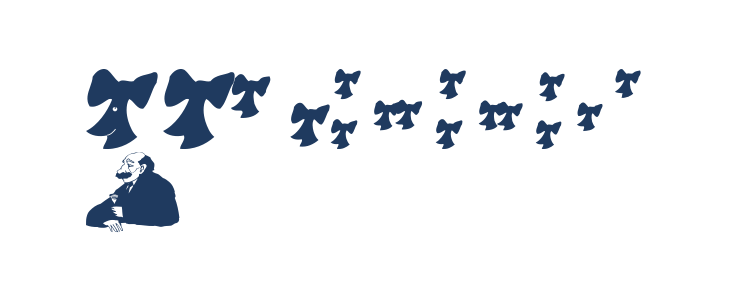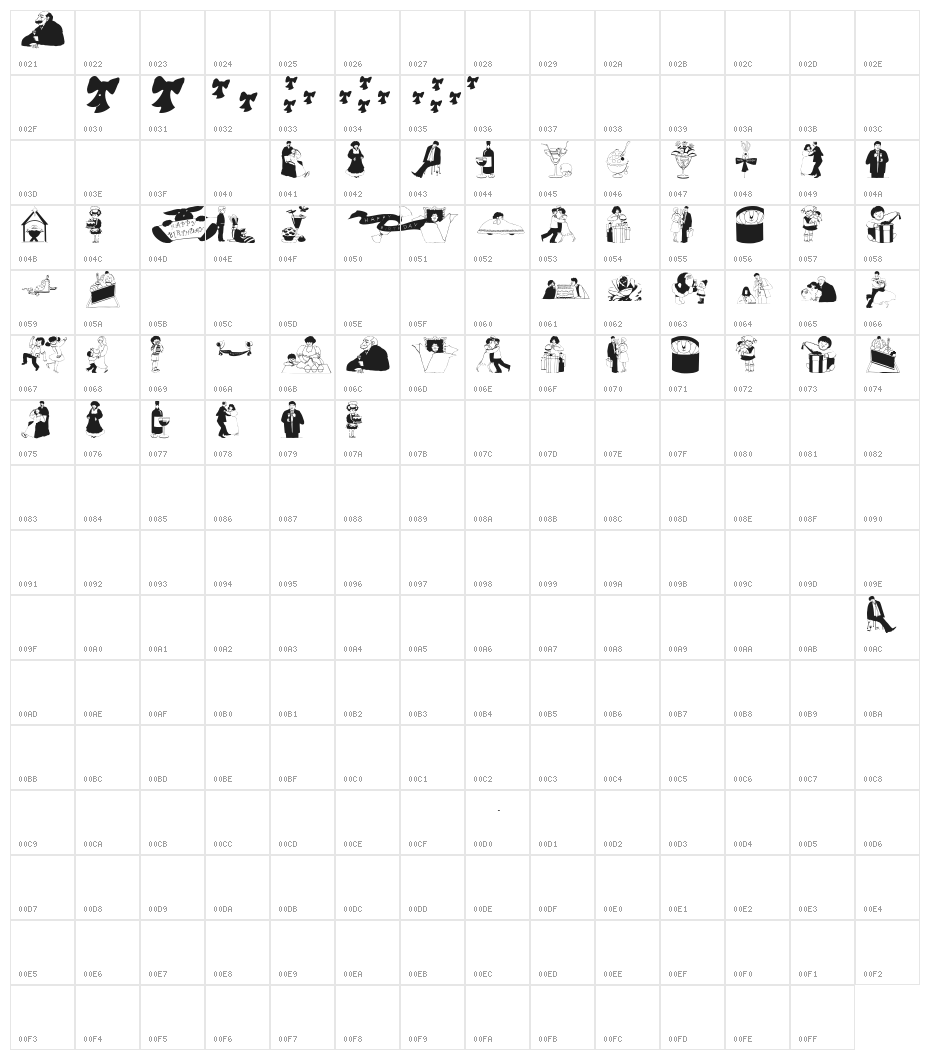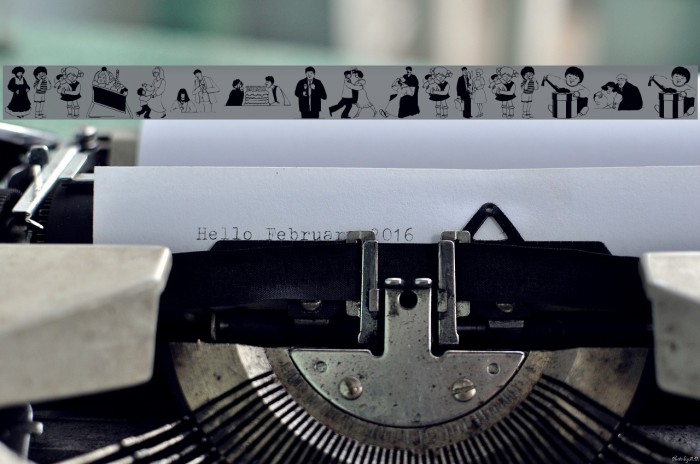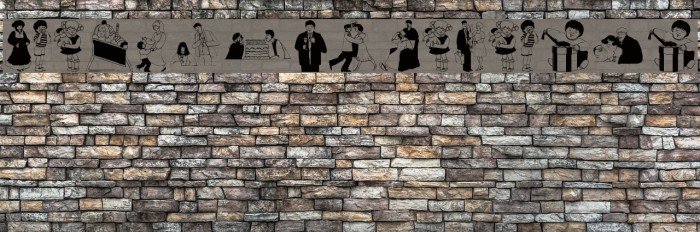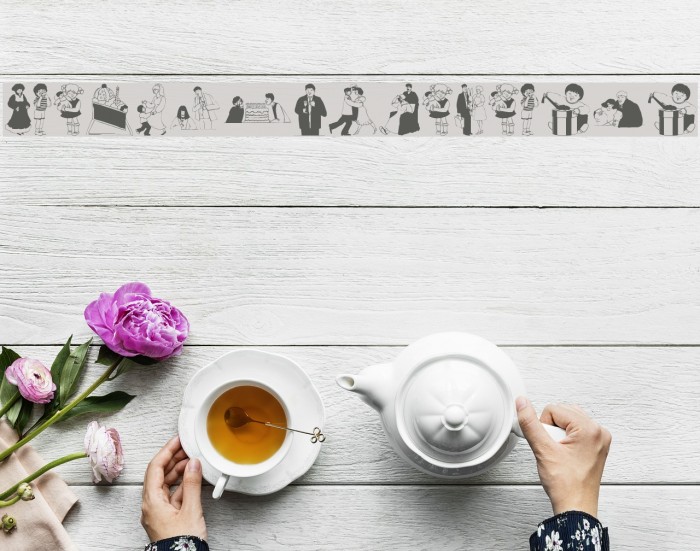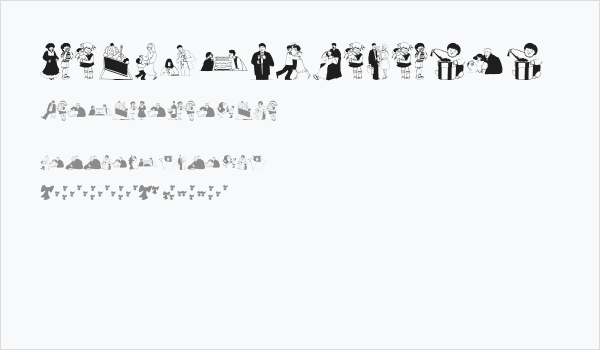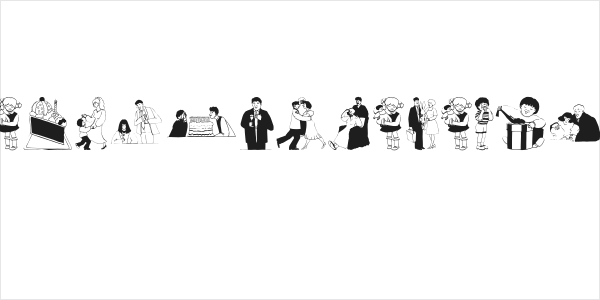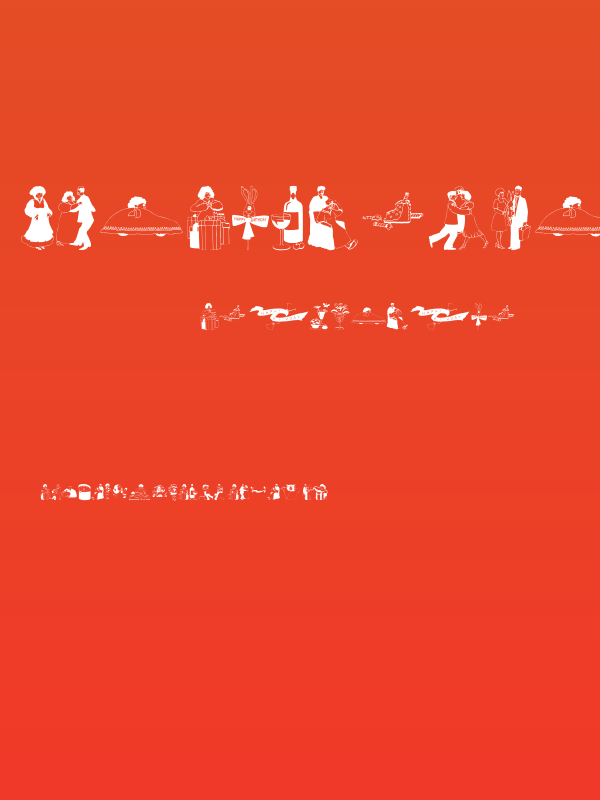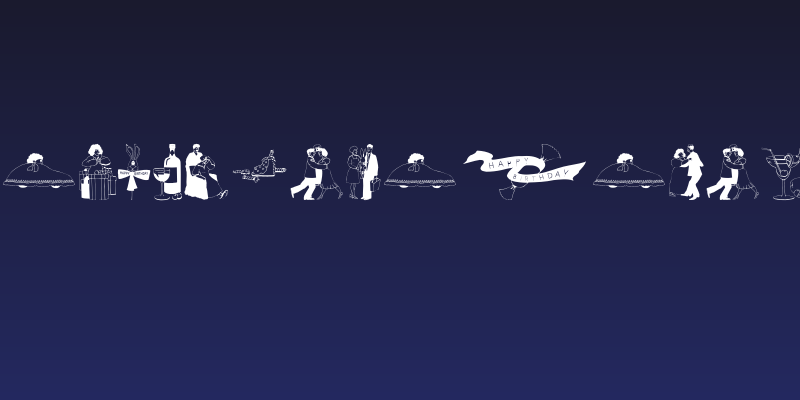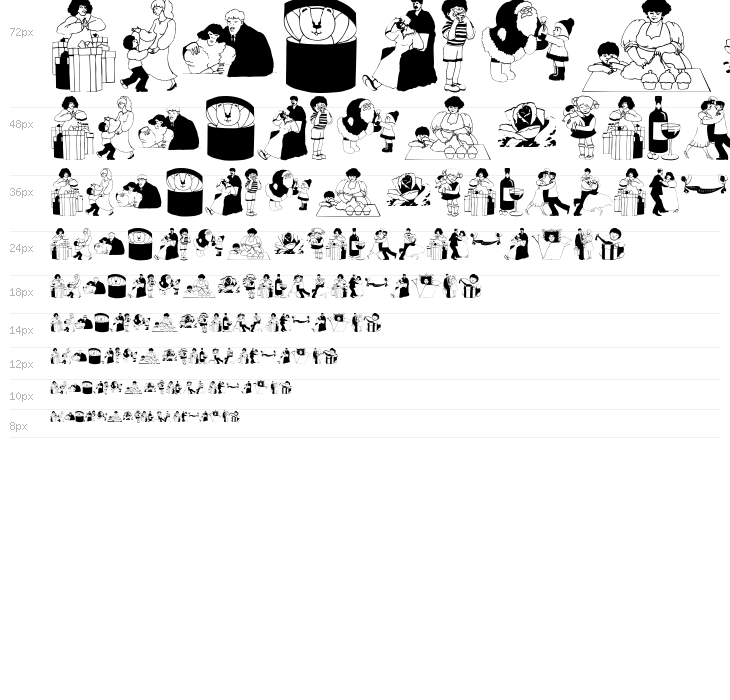
BirthdaySurprises Font
BirthdaySurprises Description
A decorative dingbat font featuring playful, detailed illustrations of birthday celebrations, gifts, party scenes, bows, and festive characters. Each glyph is a unique, cartoon-style image rather than a traditional letterform, emphasizing a whimsical and celebratory theme.
| Overall Style | Decorative, Whimsical, Playful |
| Use Case | Decorative elements, Invitations, Themed graphics |
| Proposed Projects | Party invitations, greeting cards, event flyers, scrapbooking, decorative headings for birthday-related materials. |